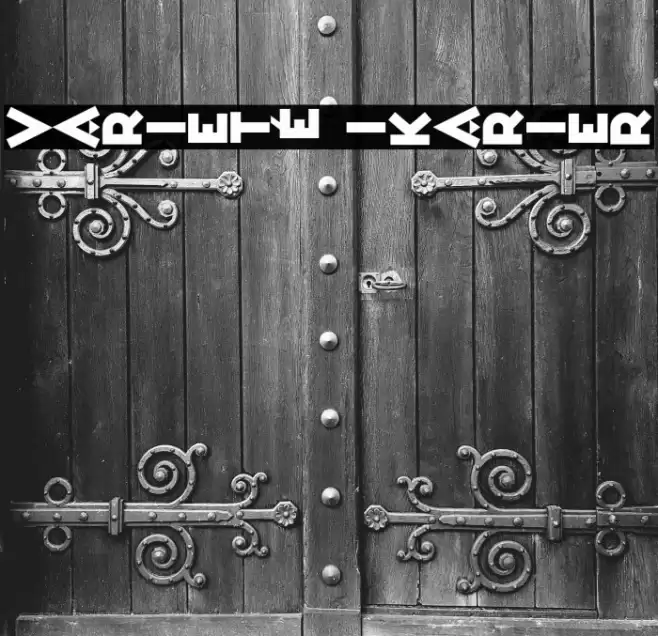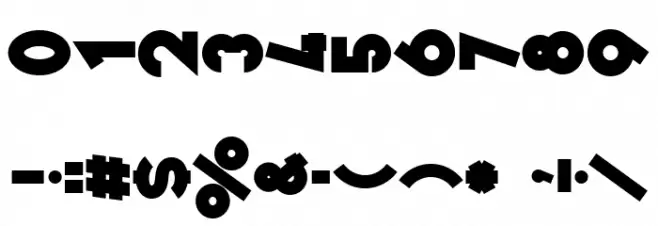
Varieté Ikarier Font
Varieté Ikarier Description
This font features a bold and geometric design, characterized by its strong, angular shapes and unique cutouts within each character. The letters are constructed with a sense of symmetry and balance, yet they maintain a playful and modern aesthetic. The uppercase and lowercase letters share a consistent style, with the numbers and special characters following suit. The font's distinctiveness lies in its creative use of negative space and its ability to capture attention with its striking appearance. It is well-suited for projects that require a bold statement or a contemporary edge.
A bold, geometric font with angular shapes and creative cutouts from Uncategorized fonts.